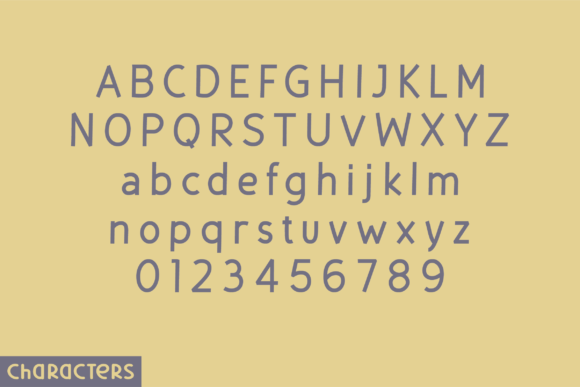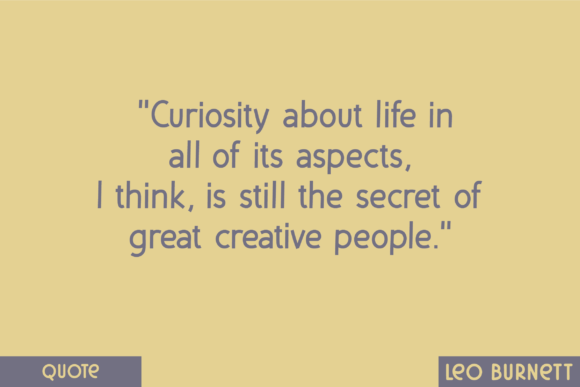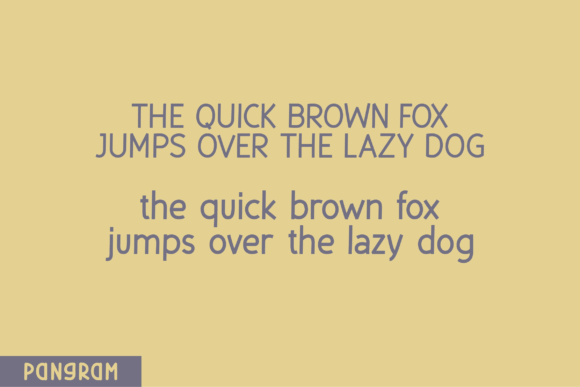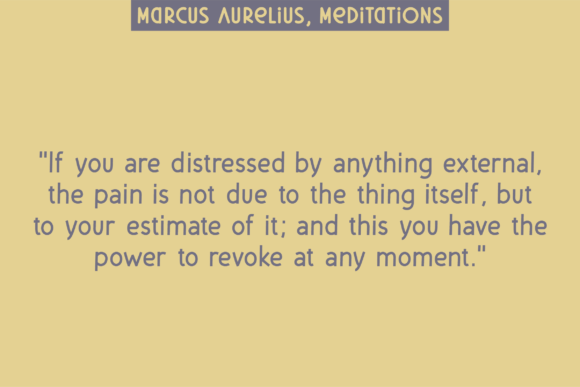
Introducing Almondtart Font: The Unique Sans Serif for Creative Designs
In the world of typography, a new font has emerged that is capturing the attention of designers and crafters alike. Almondtart Font is a natural sans serif font that boasts a unique feature – it was created without changing a single node in each character’s indentation. This distinctive approach makes Almondtart a standout in the realm of typography, perfect for a variety of creative projects.
The Story Behind Almondtart Font
Almondtart Font is the brainchild of a meticulous designer who sought to create a typeface that was both simple and intriguing. By preserving the original indentation of each character, the designer aimed to craft a font that would exude a sense of organic and natural feel. The result is a font that is not only visually appealing but also highly versatile.
Key Features of Almondtart Font
• Natural Sans Serif: Almondtart Font features a clean and minimalist sans serif design, making it perfect for a wide range of applications.
• Unique Indentation: The font’s distinctive feature is that it was created without altering a single node in each character’s indentation, giving it a one-of-a-kind look.
• High Versatility: Almondtart Font can be used for various design projects, including quotes, notes, tees, and product design.
Almondtart Font is an excellent choice for designers and crafters looking to add a personal touch to their work. The font’s unique feature makes it ideal for:
• Quotes and Notes: Add a touch of elegance to your quotes and notes with Almondtart Font.
• T-Shirt Designs: Create eye-catching tees with this distinctive font.
• Product Design: Use Almondtart Font to give your product designs a unique and natural look.
Why Choose Almondtart Font?
With so many fonts available, why choose Almondtart Font? Here are a few compelling reasons:
• Uniqueness: Almondtart Font’s distinctive feature sets it apart from other fonts.
• Versatility: The font can be used for a wide range of design projects.
• Ease of Use: Almondtart Font is easy to read and works well in various sizes.
Tips for Using Almondtart Font
To get the most out of Almondtart Font, consider the following tips:
• Pair with Other Fonts: Combine Almondtart Font with other fonts to create a visually appealing contrast.
• Experiment with Sizes: Try using Almondtart Font in different sizes to add emphasis and create visual hierarchy.
• Use for Headings and Body Text: Almondtart Font works well for both headings and body text, making it a great choice for a wide range of design projects.
Font Name Almondtart Font
Author Hanna Bie
Almondtart Font is a unique and versatile sans serif font that is perfect for designers and crafters looking to add a personal touch to their work. Its distinctive feature, natural feel, and high versatility make it an excellent choice for a wide range of design projects. Whether you’re creating quotes, notes, tees, or product designs, Almondtart Font is sure to make your work stand out.